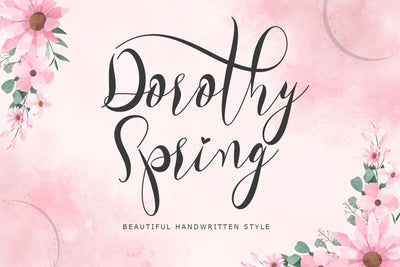
Dorothy Spring
"Dorothy Spring" is a beautiful and elegant handwritten font. This font is equipped with uppercase, lowercase, ligatures, numerals, punctuation, and multilingual support. Very suitable for weddings, spring, summer, invitations, Valentine's Day, Mother's Day, engagements, and others.